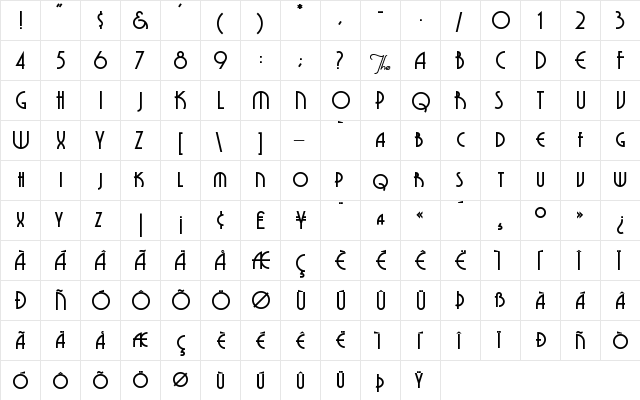
Grenadier Regular
Design Context for Grenadier Typeface
Grenadier is a composed and adaptable typeface that performs quietly and consistently across a wide range of design contexts.